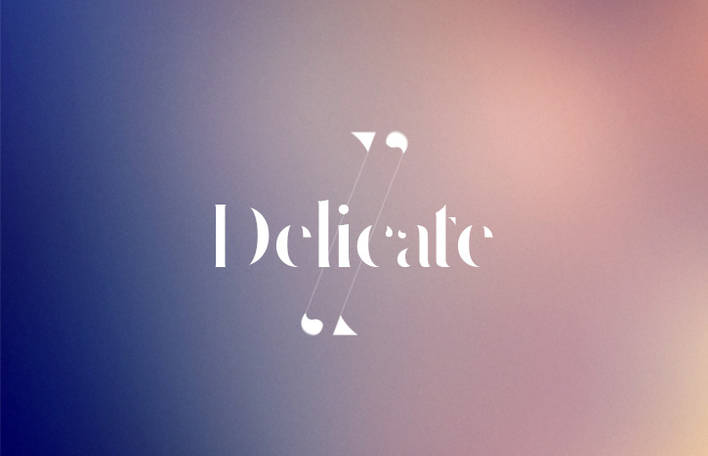
Faak & Paak studio, have been working on a typography that they wish to make available to the widest use and for every task.
‘Delicate’ is a typography with special characteristics, difficult to classify in the Vox-ATypl classification. ‘Delicate’ has common features with the Incise typography by its broadening stems, but remains hybrid in its structure.